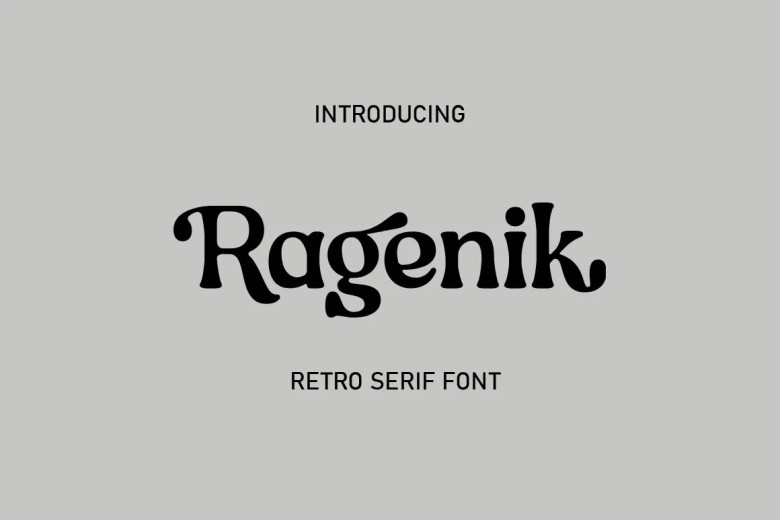
Ragenik Font
Ragenik Font, created by Storytype, A modern and classic retro serif font that has own unique style & modern look. This typeface is perfect for an elegant & luxury logo, book or movie title design, fashion brand, magazine, clothes, lettering, quotes, and so much more.
Ragenik Serif Font